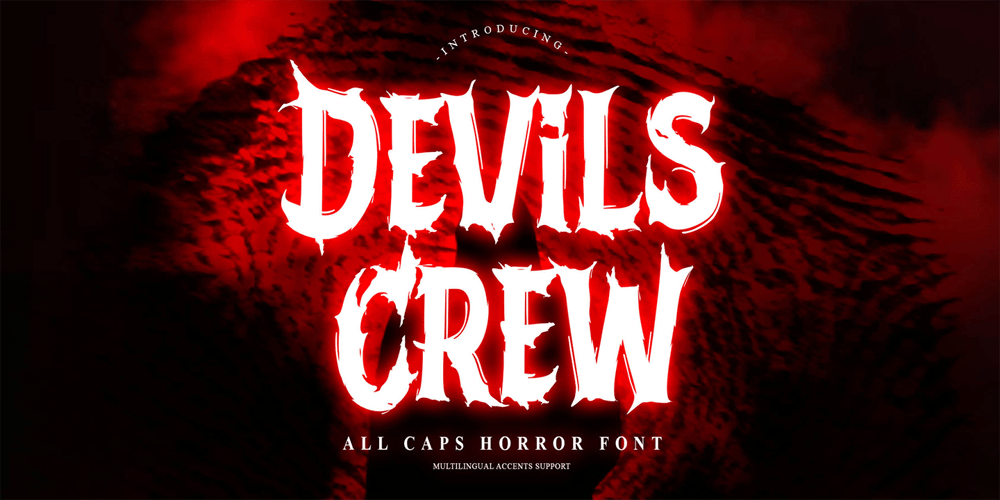
Devils Crew Font Family was designed by Abdul Malik Wisnu and published by Gassstype. Devils Crew contains 1 styles and family package options. Hello Everyone, introduce our new product Font Devils Crew it is All Caps Horror Font.This is a Textured Natural Style and classy style with a clear style and dramatic movement.That is has charming, authentic and relaxed characteristic more natural look to your text. You can activate 4 Ligatures glyphs OpenType panel.